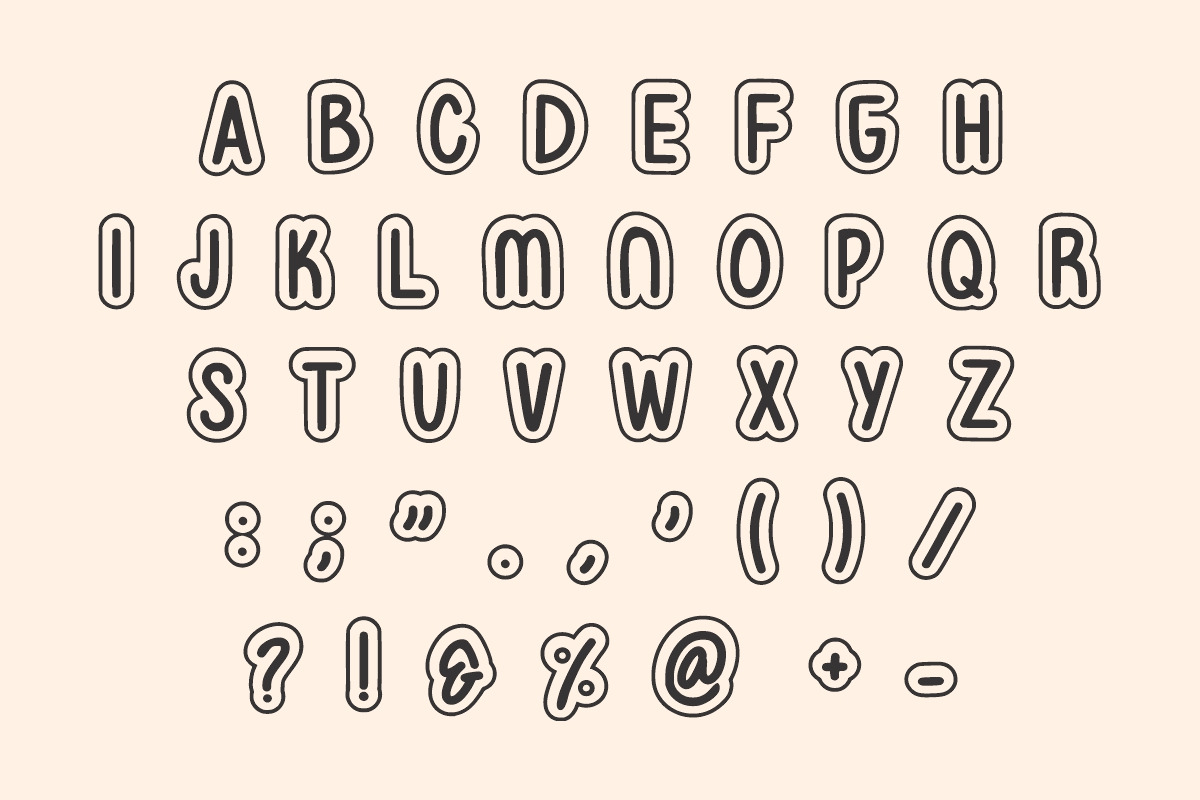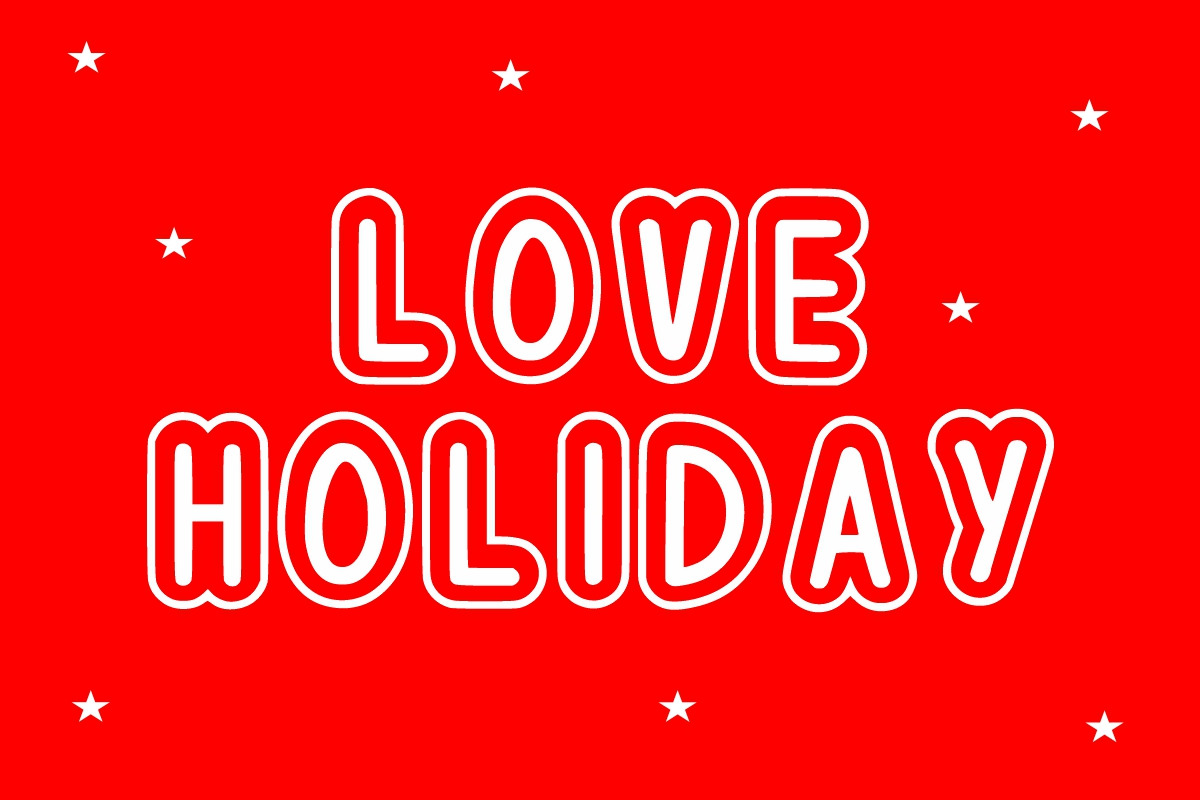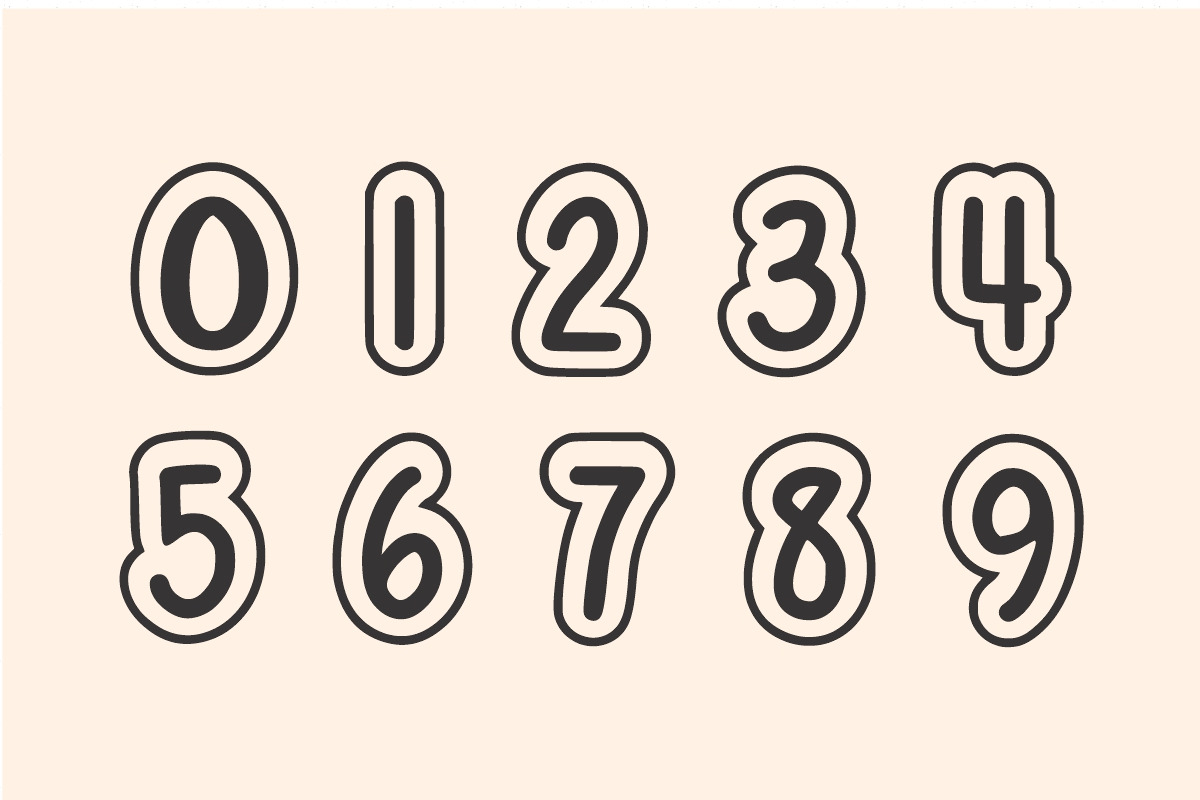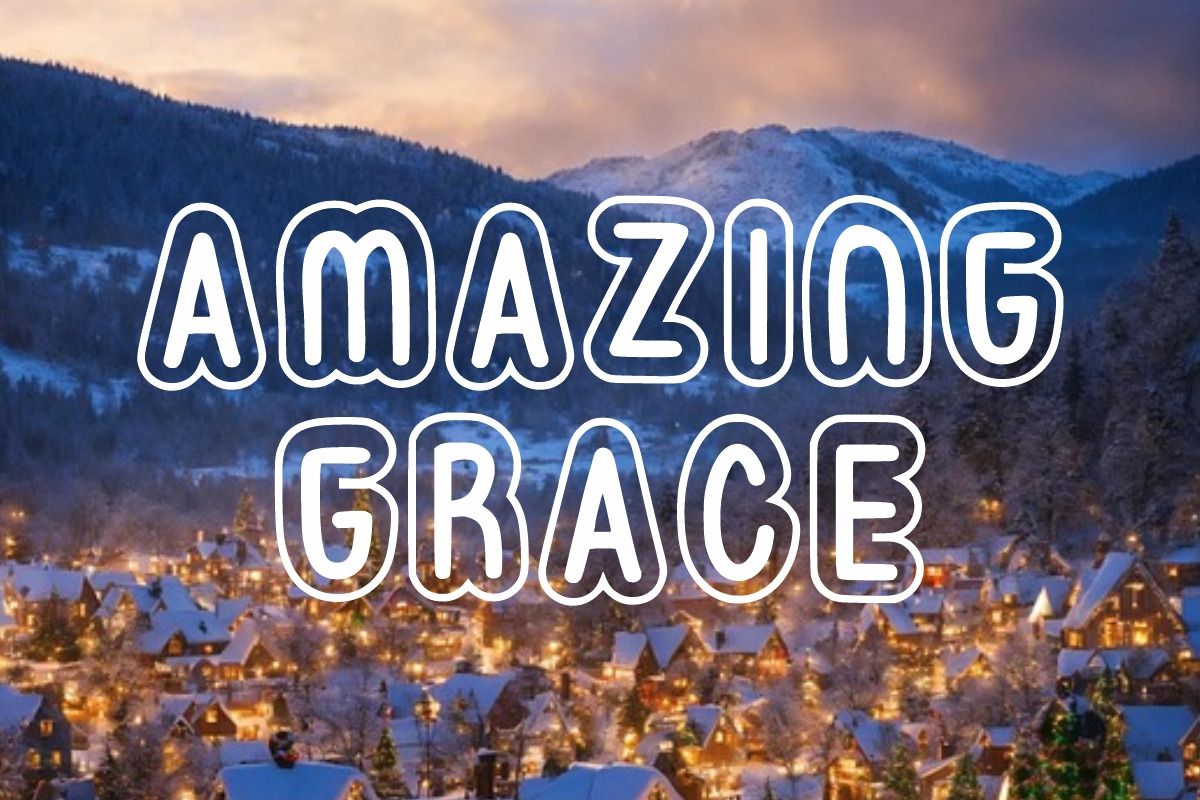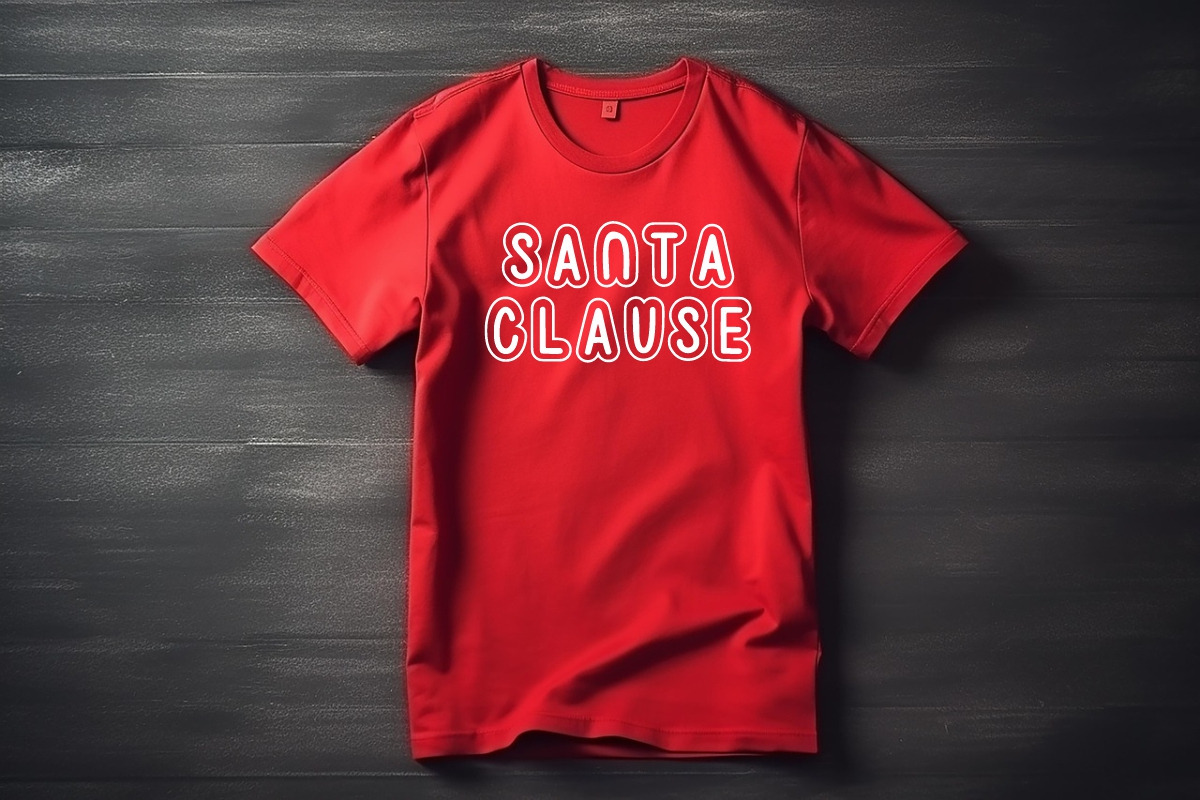
Christmas Party
Christmas Party is a cheerful and bold display font that captures the playful spirit of the holidays. With its rounded, outlined letterforms and retro bubble style, it’s perfect for creating standout titles and festive headlines. The uppercase-only design adds to its bold presence, while the smooth curves keep things friendly and lighthearted. This font works great for holiday cards, party invitations, kids’ events, Christmas packaging, or any design that needs a touch of fun and celebration. The set includes punctuation and special characters, making it flexible enough for both creative and commercial projects.